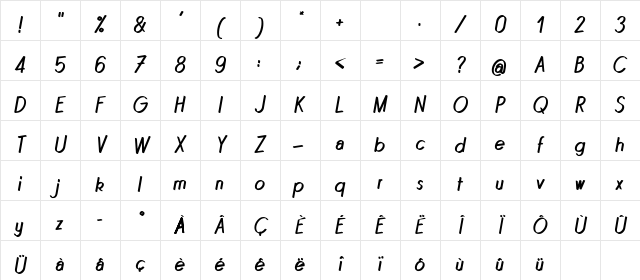
Quincaille Italique Free Font
Quincaille Italique
Style: Italique
Design Context for Quincaille
Quincaille is a composed and adaptable typeface that performs quietly and consistently across a wide range of design contexts.